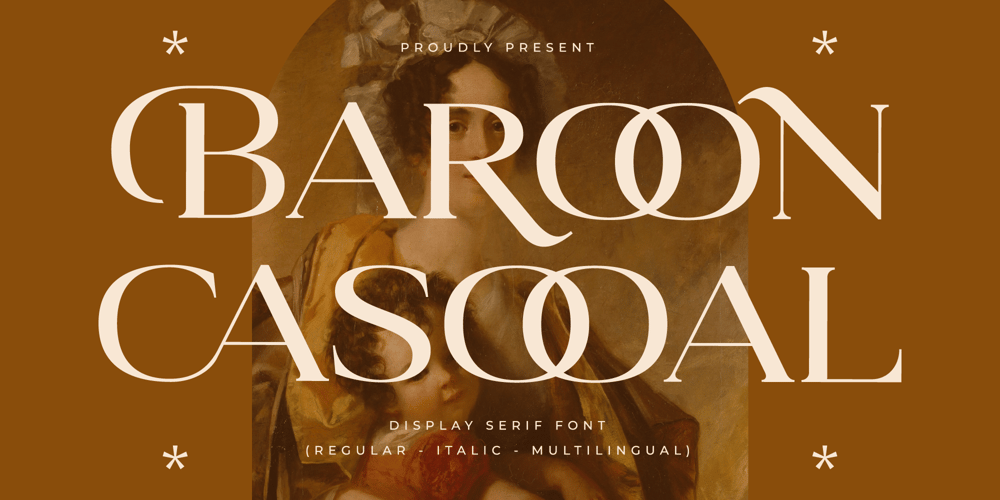
Baroon Casooal
Baroon Casooal font
Baroon Casooal Font Family was designed by Heru Utama Putra and published by Letterena Studios. Baroon Casooal contains 2 styles and family package options. Baroon Casooal is an elegant and bold serif font. Fall in love with its incredibly versatile style and use it to create gorgeous wedding invitations, beautiful stationary art, eye-catching social media posts, and much more!